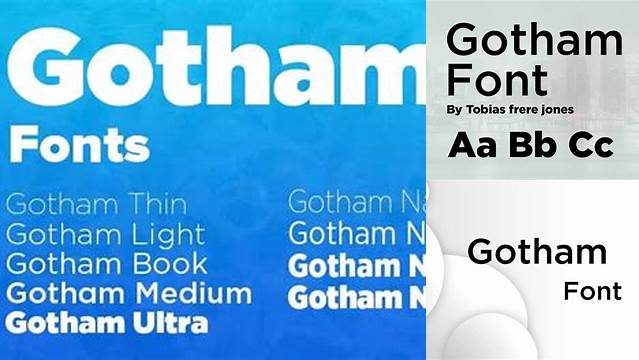
Hey guys! Are you looking to add a touch of modern elegance to your Mac projects? Well, look no further than the Gotham font! This versatile typeface has become a design staple, known for its clean lines and readability. And guess what? You can often find it available for free download! This guide will walk you through everything you need to know about getting the Gotham font on your Mac, ensuring a smooth and hassle-free experience. Whether you're a seasoned designer or just starting out, this is your go-to resource.
Gotham Font: Why It's a Design Darling
Okay, let's talk about why everyone loves the Gotham font so much! Created by Tobias Frere-Jones and released in 2000, Gotham quickly gained popularity. Its geometric sans-serif design makes it incredibly versatile. It's clean, it's modern, and it works for everything from headlines to body text. Its neutrality is part of its charm. Gotham's presence is subtle, allowing the content itself to take center stage, and that's what makes it such a great choice. You'll find it used everywhere, from websites and branding materials to posters and even on the Obama presidential campaign! The font's clean and straightforward design makes it incredibly easy to read, even at smaller sizes. Gotham's ability to maintain clarity is crucial in a world where visual communication is king. Its distinct letterforms, such as the rounded 'o' and the consistent stroke widths, provide a visual rhythm. This rhythm is easy on the eyes. This is a key factor that makes Gotham a favorite for both print and digital projects. The design is based on the architectural signage found in mid-twentieth-century America. It's not just a font; it's a statement. It's a testament to the power of simplicity and the impact of well-crafted typography. It is designed to be adaptable, working effectively in a range of sizes. It has the ability to look great whether it's used in large headlines or small text. Many designers love this, because it means they can stay consistent across their designs. With its various weights and styles, Gotham gives you the flexibility to create visually engaging designs. It is a font that is designed to be adaptable. From thin to bold, Gotham offers a wide range of weights, giving you complete design freedom. Choosing the right font is a huge part of visual communication. Gotham allows you to make a statement. It is also easily accessible, making it a popular choice for those seeking a balance between style and usability. Gotham embodies a modern sensibility while retaining a timeless appeal. It is known as a great design choice for a wide range of creative projects.
The Aesthetic Appeal of Gotham
Let's dive deeper into what makes Gotham so visually appealing. One of the key aspects is its geometric design. The letters are built with simple shapes like circles and rectangles. This gives Gotham its clean and modern look. The lack of serifs adds to its contemporary feel. It allows it to fit seamlessly into various design contexts. Gotham's neutral style also allows it to be highly versatile. Its adaptability makes it well-suited for many projects. Whether you're designing a website, creating marketing materials, or crafting a personal project, Gotham can be an excellent choice. Its readability at different sizes is another huge plus. The distinct letterforms of Gotham, like the rounded 'o' and the consistent stroke widths, also create a visual harmony that enhances readability. This harmony is crucial for anything from headlines to body text. This is very important when creating a positive user experience. Gotham offers a wide variety of weights and styles. This gives designers tons of flexibility. The family includes various weights, from light to bold. This lets you emphasize different aspects of your design. It also gives you the tools needed to create hierarchy and visual interest. Gotham's roots in mid-century architectural signage give it a unique character. It adds a touch of historical context. This subtle nod to the past adds depth and sophistication to the font. Gotham manages to be both trendy and timeless. It is a great option for a variety of creative endeavors. It’s a great option, because it can blend into various styles. The aesthetic appeal comes from its careful construction. It makes it a great choice.